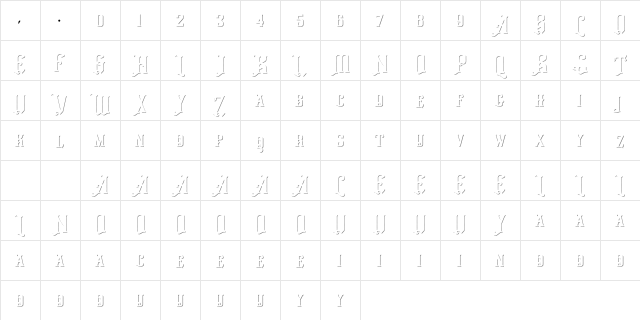
Graphite Striped Font Preview
Graphite Striped
Graphite Striped Font Details
| Style | Striped |
| Foundry | Hans Co. |
| Designer | Burhan Afif |
Design Context for Graphite Typeface
Graphite is a composed and adaptable typeface that performs quietly and consistently across a wide range of design contexts.